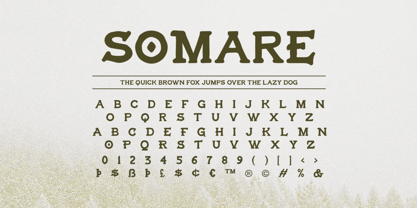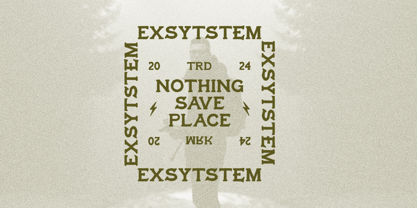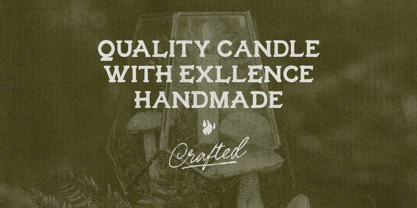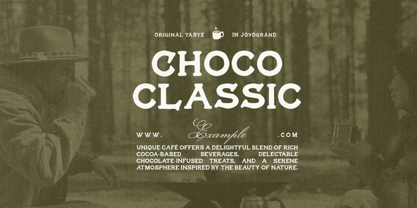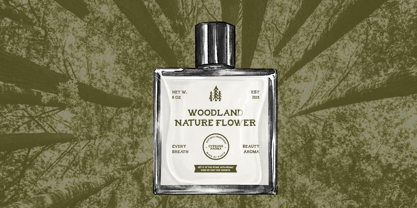
Somare
by Bale Type
The Somare Font Family was designed by Sarid Ezra, Dzikrul Aulia and published by Bale Type. Somare contains 1 styles.
Somare is a hand lettered slab serif with rough and vintage looks. You can use this fonts for many purposes such as logotype, quotes or any projects that require adventure and outdoor vibes. With different uppercase and lowercase, you can choose what you want or combine them in a word. This fonts also support multi language!